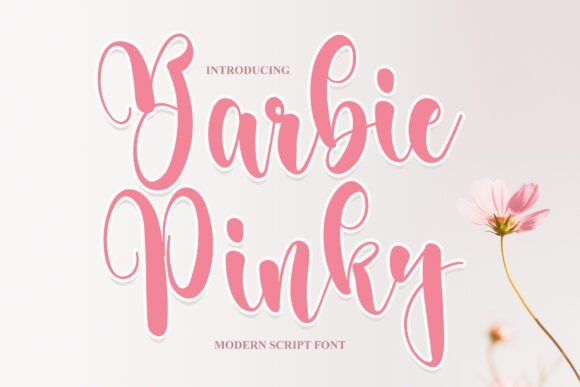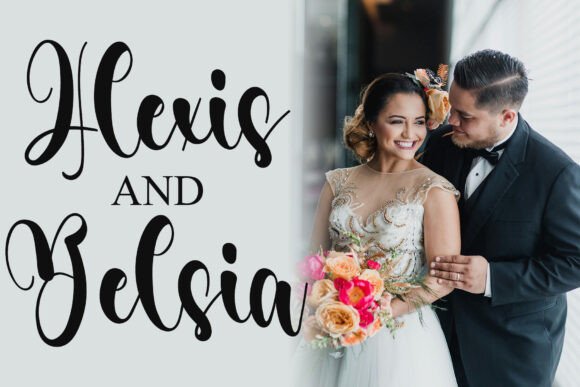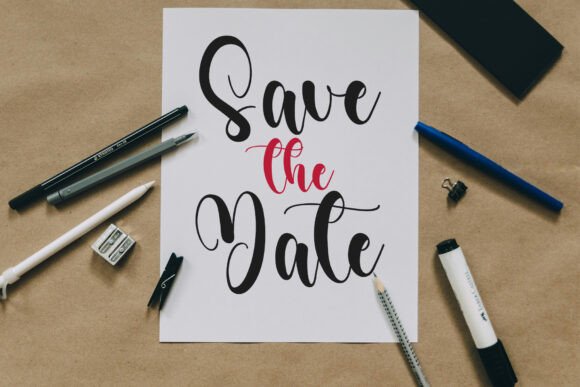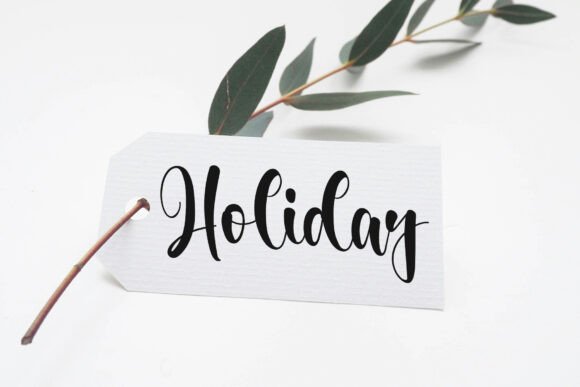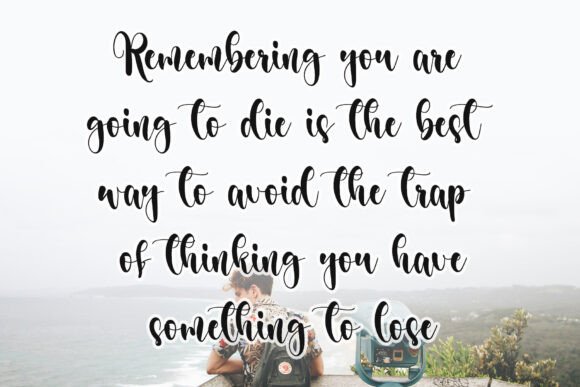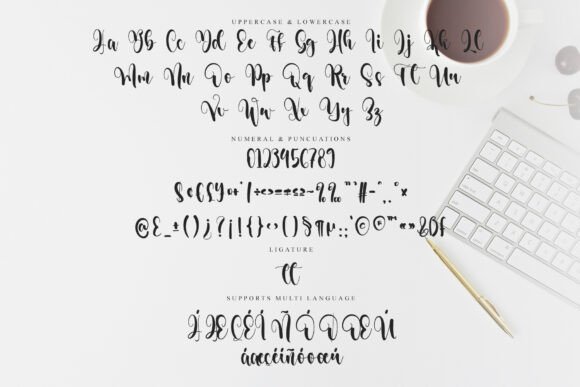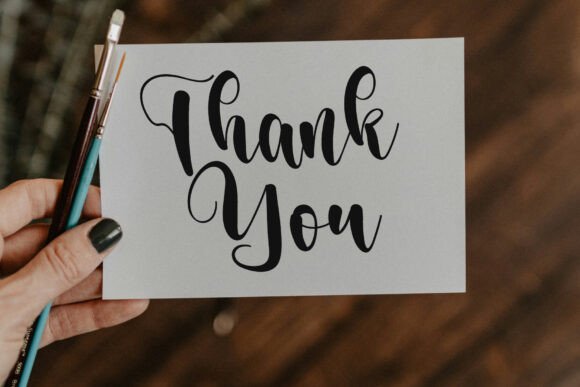
Unleashing Whimsy with Barbie Pinky Font
Do you remember the excitement of browsing through a craft store as a child, searching for the perfect font to match your creative vision? Perhaps you spent hours poring over font samples, trying to find the perfect fit for your next project. For many designers, this is a moment we all know and love – the thrill of discovery, the rush of inspiration.
Today, we’re thrilled to introduce the Barbie Pinky Font, a sweet and cursive handwritten font that will add a touch of whimsy to your designs. Perfect for branding, logos, and marketing promotions, this gentle font is sure to delight. Whether you’re working on a wedding invitation, a fashion lookbook, or a simple greeting card, the Barbie Pinky Font is the perfect choice to add a romantic and elegant touch.
Barbie Pinky Font Key Features
- Font Family: Barbie Pinky is a unique, handwritten font family designed to resemble the iconic Barbie doll.
- Unique Characteristics: The font features a playful, cursive style with decorative elements and flourishes, making it perfect for adding a touch of whimsy to designs.
- Script and Brush Styles: The font family includes both script and brush styles, allowing designers to create a range of effects and moods with the same font.
Designer Review: Barbie Pinky Font
As a designer, I was excited to dive into the Barbie Pinky Font, and overall, it has some great qualities. ✨ One of the things that stood out to me was the unique and playful vibe it gives off. The font is perfect for adding a touch of whimsy to children’s books, birthday party invitations, or even social media posts.
- ✨ Unique and playful character set that will add a fun touch to your designs.
- ✨ Perfect for targeting a younger audience or creating a nostalgic feel.
- ✨ Easy to read and understand, even at smaller font sizes.
- ⚠️ Limited use cases – the font might not be suitable for more formal or professional designs.
- ⚠️ Some characters may not be as well-designed as others, which can affect the overall look and feel of your design.
Overall, I think the Barbie Pinky Font is a fun and playful addition to any designer’s toolkit. While it may not be the best choice for every project, it’s perfect for adding a touch of personality to your designs.
Use the Barbie Pinky Font to create eye-catching headings and titles.
Combine the font with other playful elements, such as bright colors and fun graphics, to create a whimsical design.
Use the font in social media graphics, blog posts, and other digital content to add a touch of femininity and playfulness.
The Barbie Pinky Font is perfect for:
Creating feminine and playful designs.
Designing social media graphics, blog posts, and other digital content.
Adding a touch of whimsy to your branding and marketing materials.
Alternatives to “Barbie Pinky Font” for Designers
Lato is a modern sans-serif font that offers a clean and elegant look. It is suitable for use in headings, titles, and body text. Lato is a great alternative to Barbie Pinky Font as it provides a more professional and sophisticated feel. When to use: For corporate branding, website headers, and print materials.
Playfair Display is a luxurious serif font that adds a touch of elegance to any design. It is ideal for use in headings, titles, and quotes. Playfair Display is a more refined alternative to Barbie Pinky Font, offering a sophisticated and high-end feel. When to use: For wedding invitations, luxury branding, and high-end publications.
Great Vibes is a modern script font that offers a playful and casual look. It is suitable for use in headings, titles, and body text. Great Vibes is a more relaxed alternative to Barbie Pinky Font, providing a friendly and approachable feel. When to use: For social media graphics, blog posts, and casual branding.